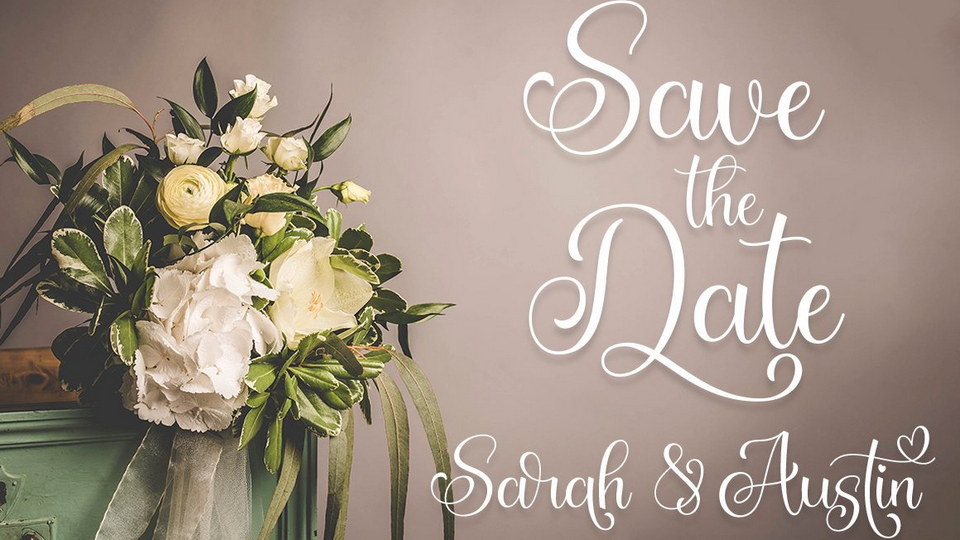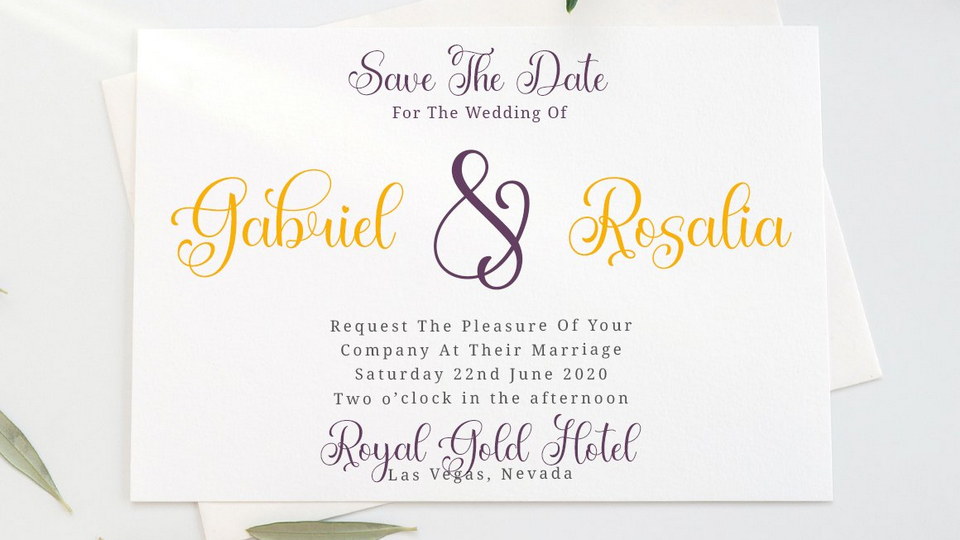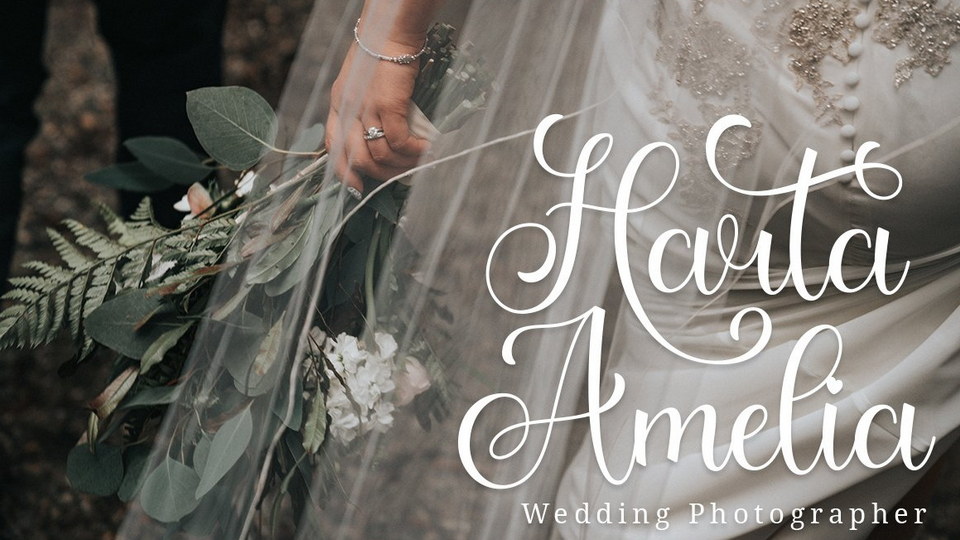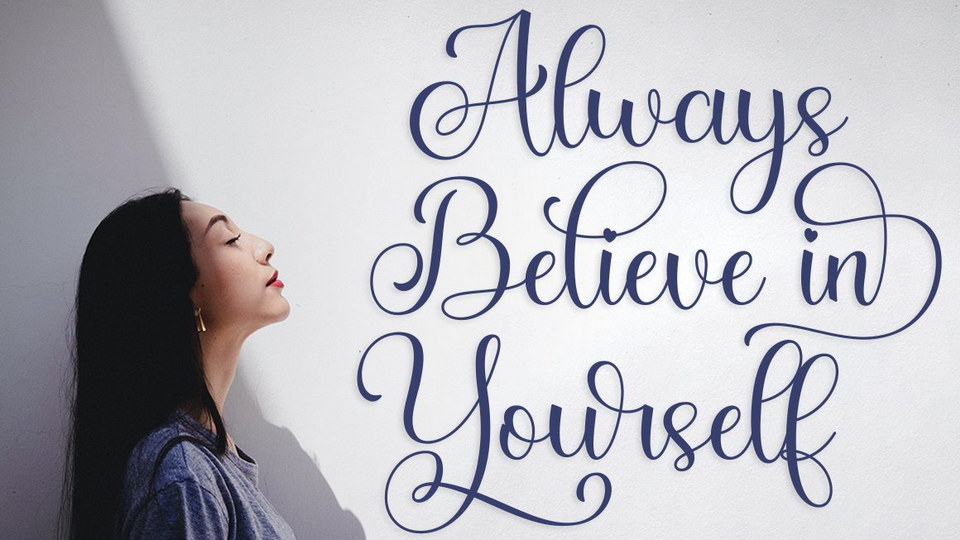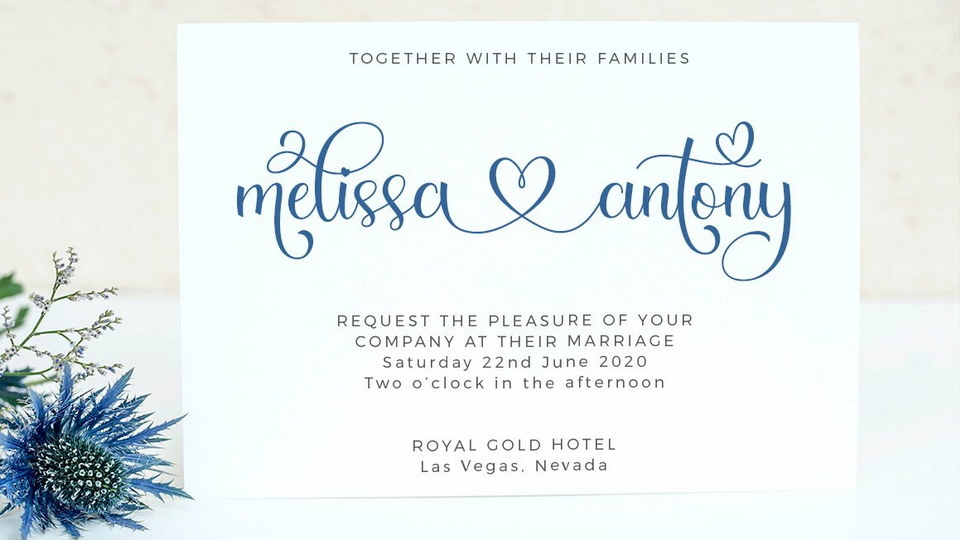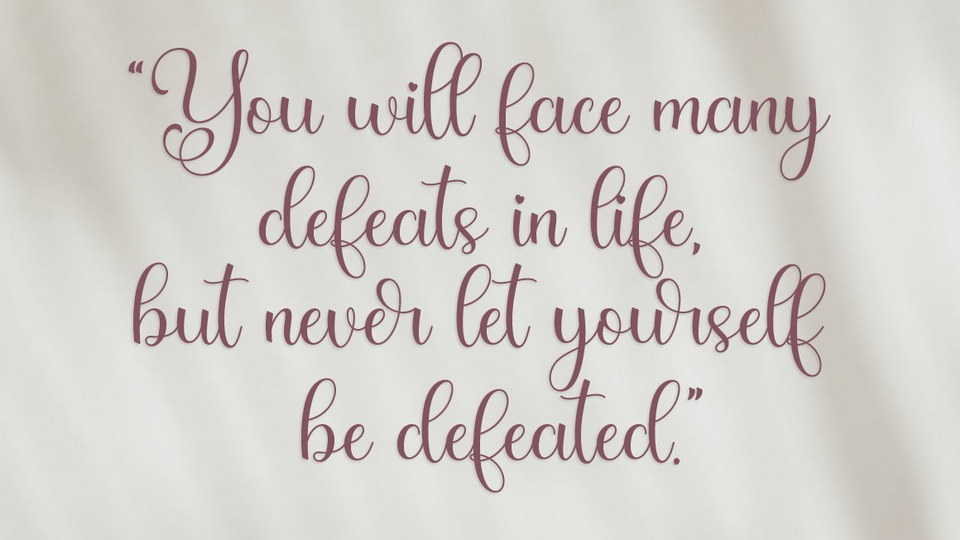
Maldives is a lovely modern calligraphy font with smooth handwritten flows. Maldives font perfect for logos, wedding stationery, cards, gift designs, photography, watermark, product packaging and handwritten quotes.